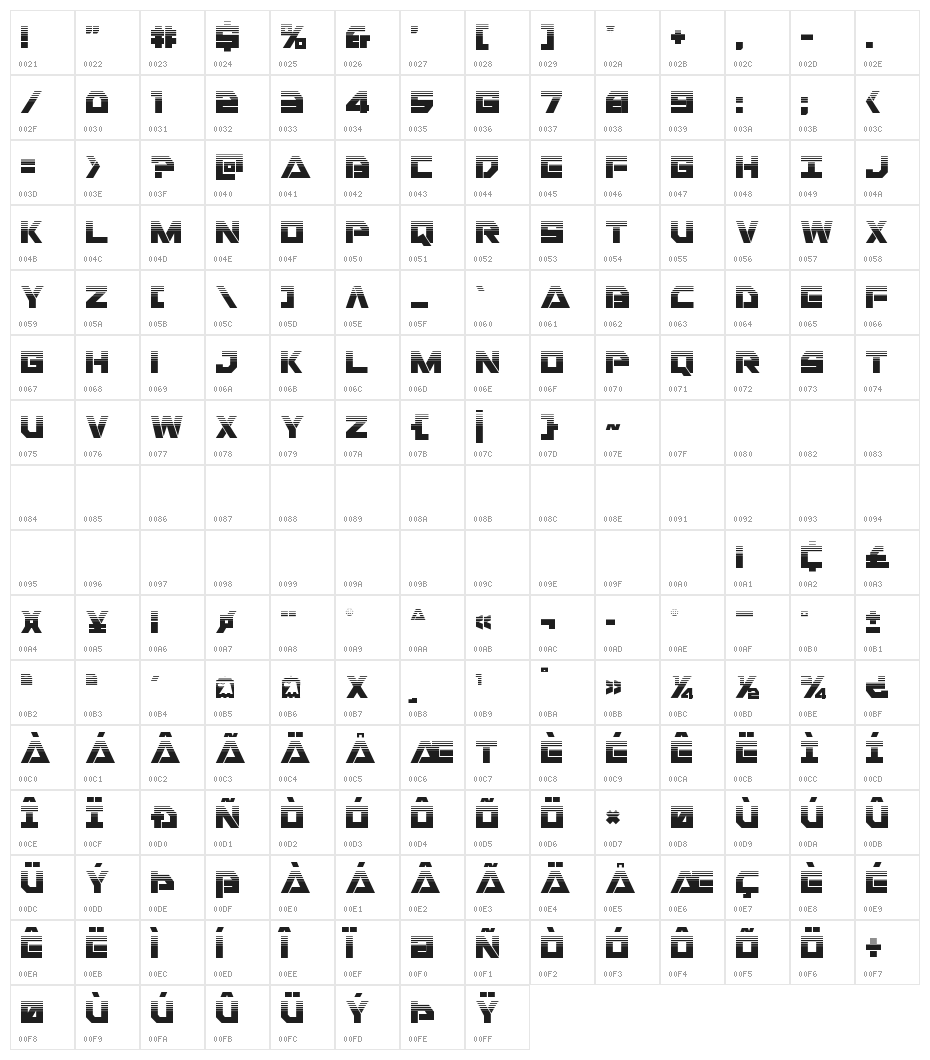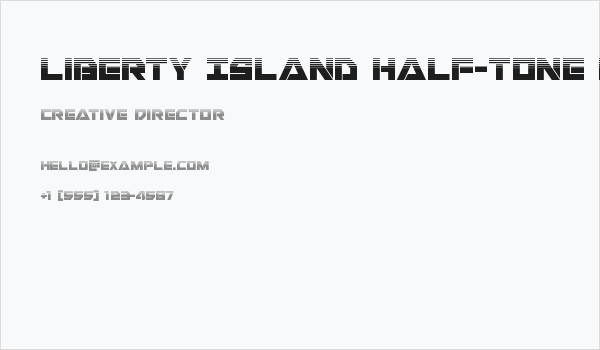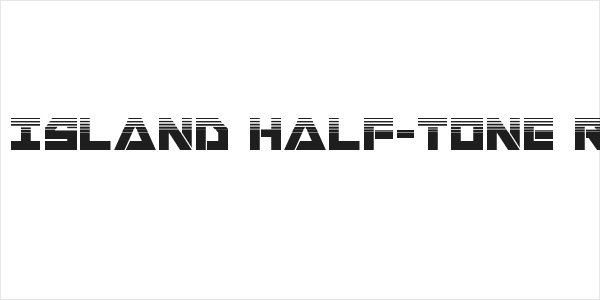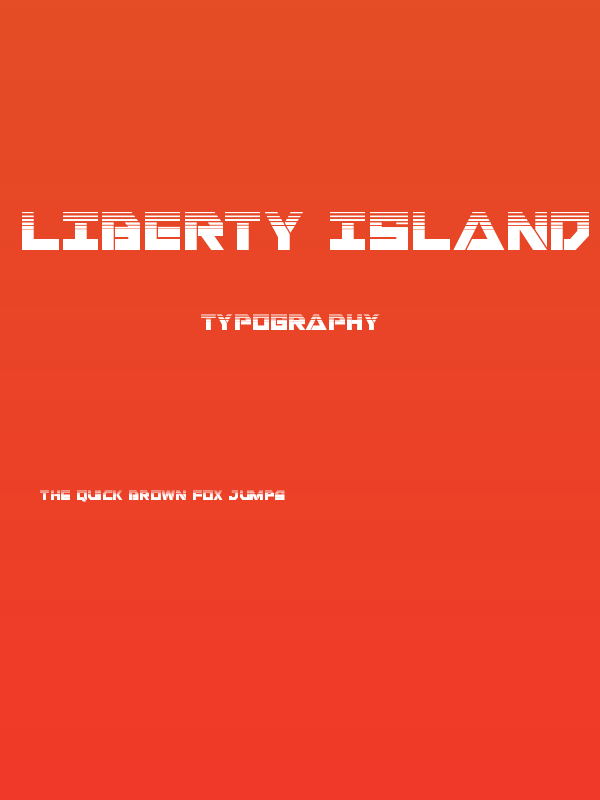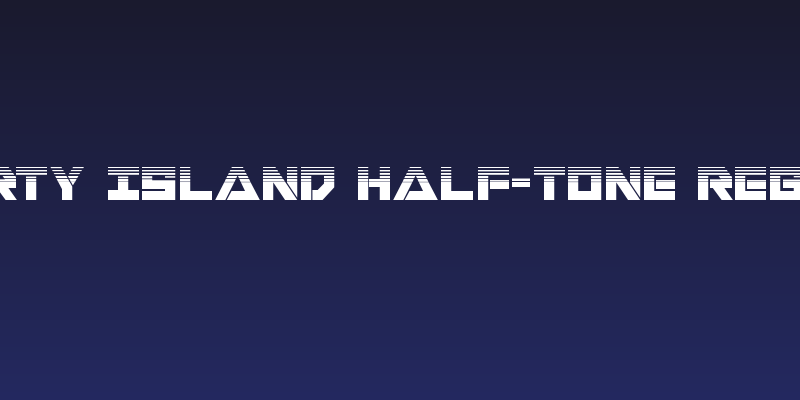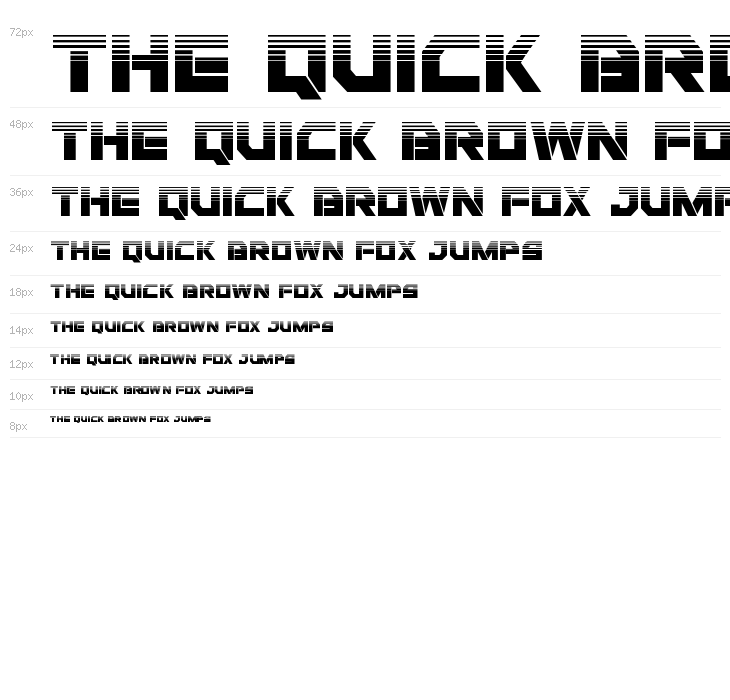
Liberty Island Half-Tone Regular Font
Liberty Island Half-Tone Regular Description
This font features a bold, geometric design with a distinctive half-tone effect that creates a sense of movement and depth. The uppercase letters are constructed with solid, angular shapes, while the horizontal lines add a dynamic, layered appearance. The numerals and special characters maintain this bold, structured style, making them highly legible and impactful. The overall aesthetic is modern and industrial, suitable for projects that require a strong visual presence.
| Proposed Projects | Ideal for posters, branding, and headlines that need a modern, industrial look. |